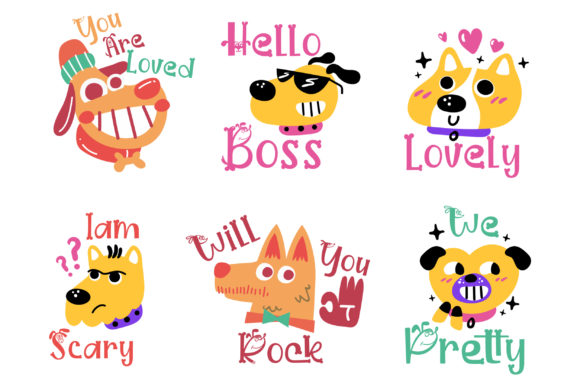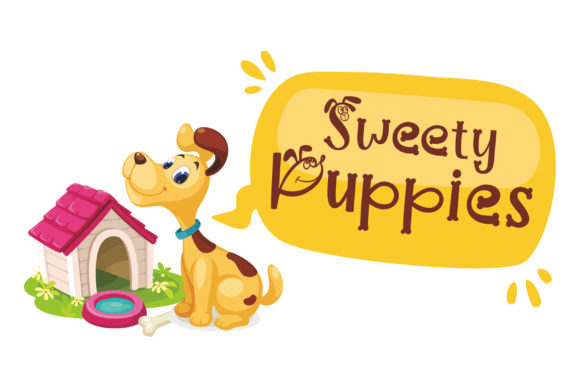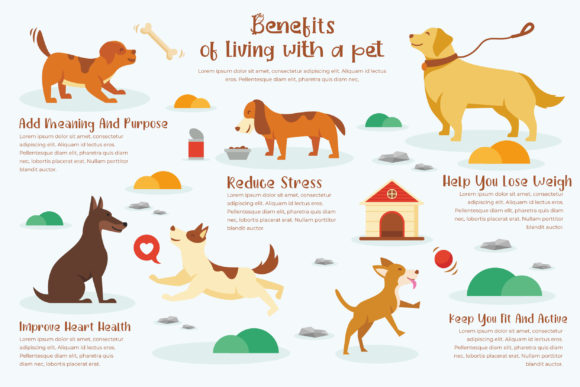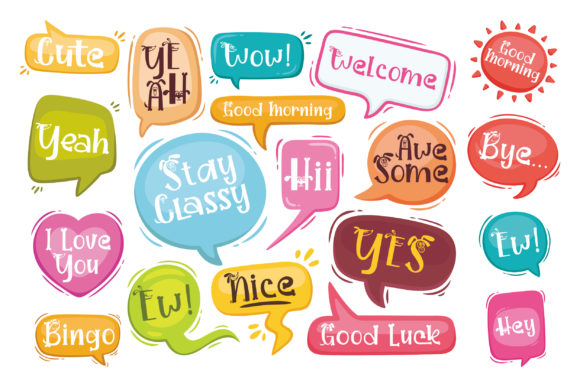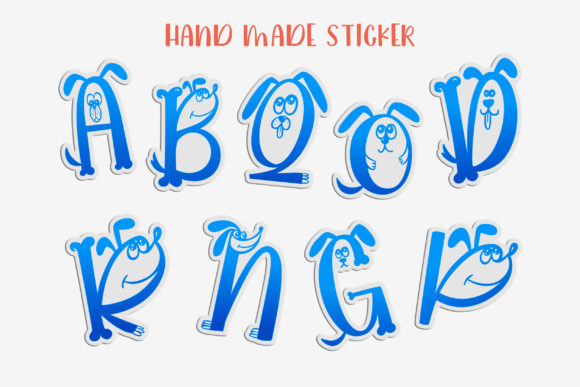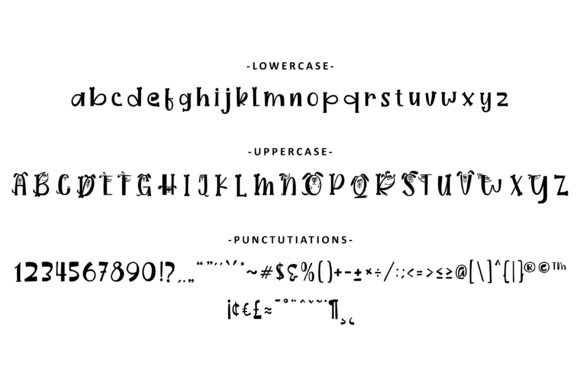
Introducing Dogmeal Font: The Cute and Quirky Display Font You Need
Are you tired of using the same old fonts in your designs? Do you want to add a touch of joy and whimsy to your creative projects? Look no further than Dogmeal Font, a delightful display font that’s sure to make your designs stand out.
What is Dogmeal Font?
Dogmeal Font is a unique and playful display font that’s perfect for designers and crafters who want to add a bit of personality to their work. With its cute and quirky design, this font is sure to bring a smile to anyone’s face. Whether you’re working on a logo, a poster, or a social media graphic, Dogmeal Font is the perfect choice.
Characteristics of Dogmeal Font
So, what makes Dogmeal Font so special? Here are just a few of its key characteristics:
- Cute and Quirky Design: Dogmeal Font has a playful, hand-drawn design that’s sure to capture attention.
- Display Font: This font is perfect for headlines, titles, and other display text.
- Unique Personality: Dogmeal Font has a distinctive personality that’s sure to set your designs apart.
Why Use Dogmeal Font?
So, why should you use Dogmeal Font in your designs? Here are just a few reasons:
- Adds a Touch of Joy: Dogmeal Font is sure to bring a smile to anyone’s face, making it perfect for designs that need a bit of personality.
- Perfect for Creative Projects: Whether you’re working on a logo, a poster, or a social media graphic, Dogmeal Font is a great choice.
- Easy to Read: Despite its playful design, Dogmeal Font is easy to read, making it perfect for display text.
How to Use Dogmeal Font
Using Dogmeal Font in your designs is easy. Here are a few tips:
- Use it as a Display Font: Dogmeal Font is perfect for headlines, titles, and other display text.
- Pair it with Other Fonts: Try pairing Dogmeal Font with a more traditional font to create a unique contrast.
- Experiment with Colors: Dogmeal Font looks great in a variety of colors, so don’t be afraid to experiment.
Who is Dogmeal Font for?
Dogmeal Font is perfect for:
- Designers: Whether you’re working on a client project or your own personal designs, Dogmeal Font is a great choice.
- Crafters: If you’re creating handmade cards, scrapbook pages, or other crafts, Dogmeal Font is a great way to add a personal touch.
- Small Business Owners: If you’re looking for a unique font to use in your branding, Dogmeal Font is a great option.
In conclusion, Dogmeal Font is a cute and quirky display font that’s perfect for designers and crafters who want to add a bit of personality to their work. With its unique design and easy-to-read style, this font is sure to make your designs stand out. So why not give Dogmeal Font a try and see how it can add a touch of joy to your creative projects?
With Dogmeal Font, you can:
- Create eye-catching headlines and titles
- Add a personal touch to your designs
- Make your designs stand out from the crowd